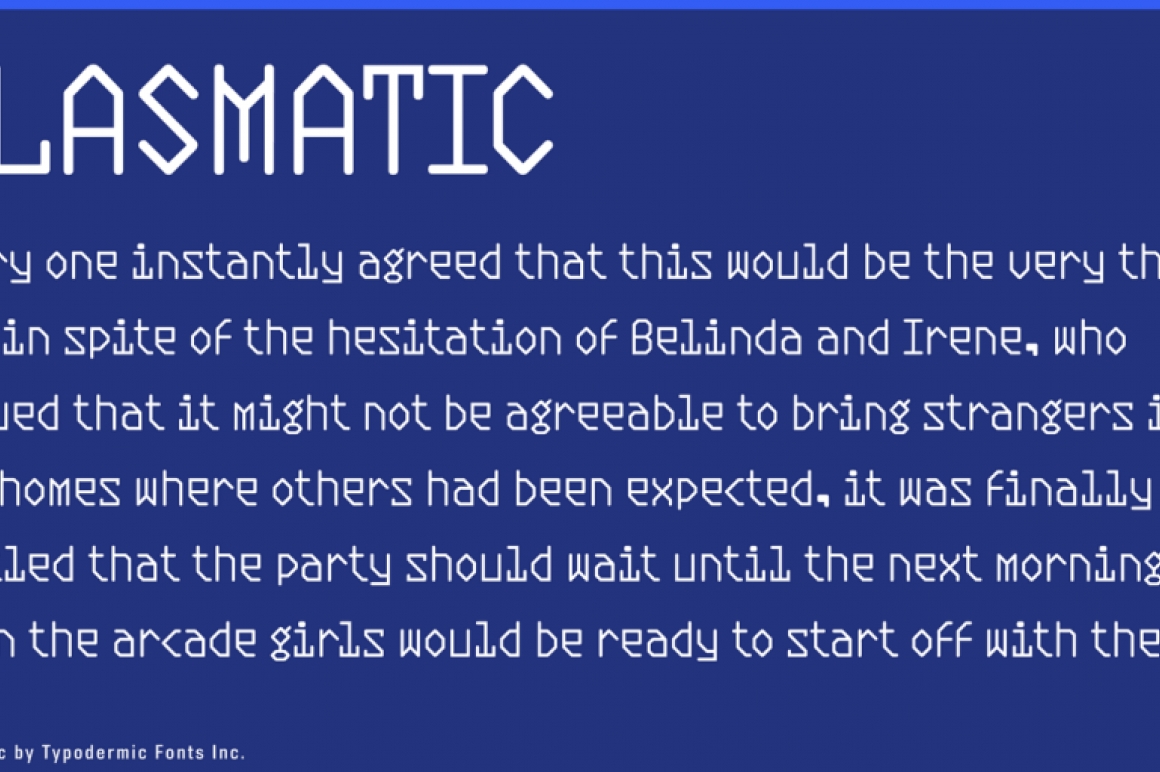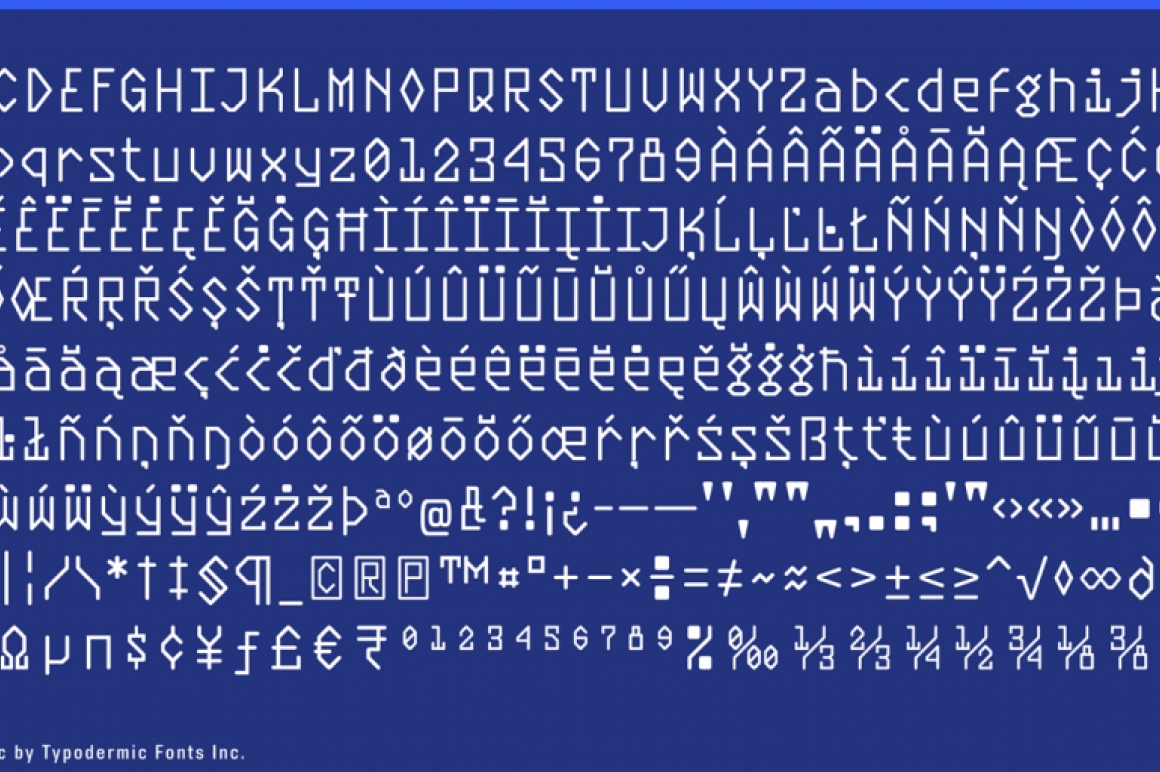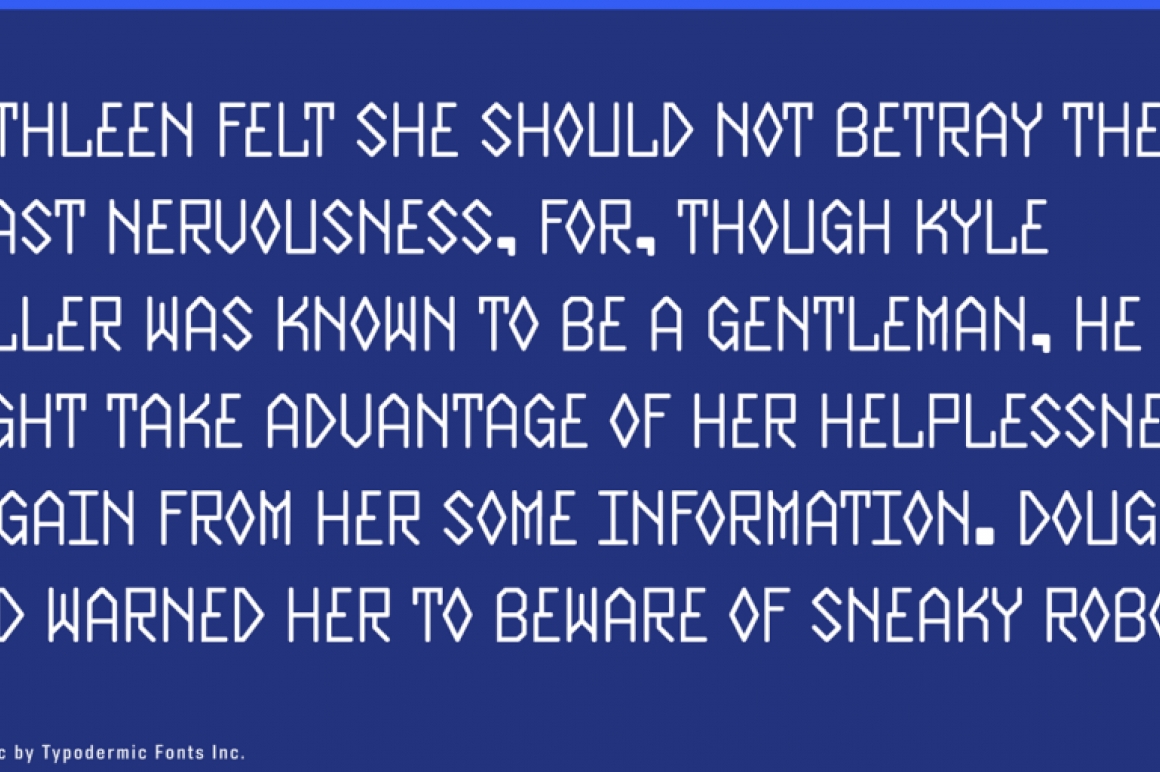
Plasmatic
Plasmatic, created in 1999, is a parody of optical character recognition (OCR) types of the 1960’s. This updated versions has improved precision, better spacing, better kerning and more language support. Lots of punctuation and symbols have been added as well as fractions and numeric ordinals. Plasmatic now includes the new Indian rupee symbol. Vertical metrics have been improved for better web performance.